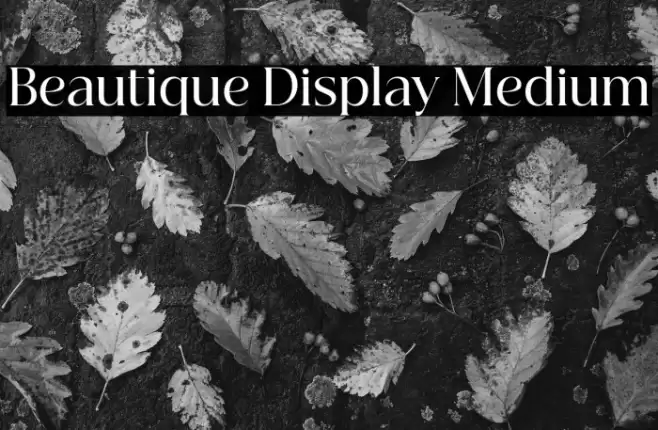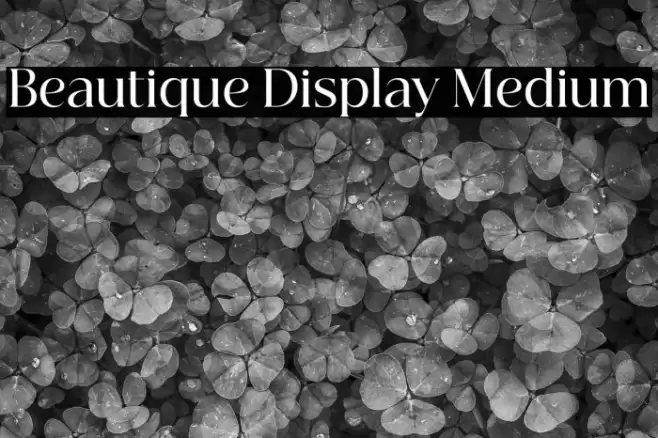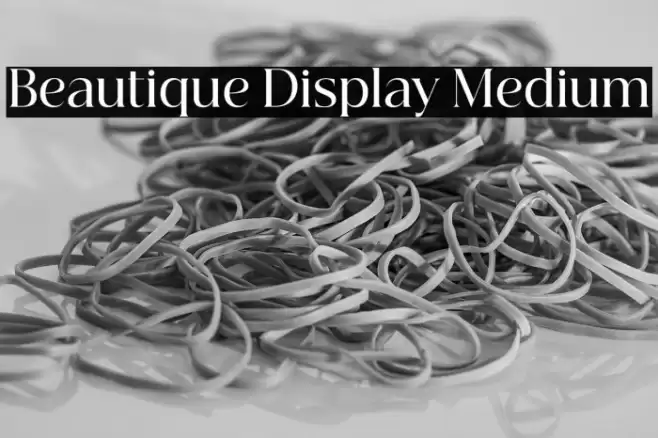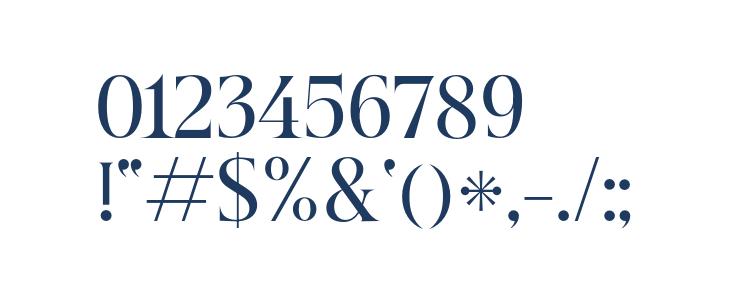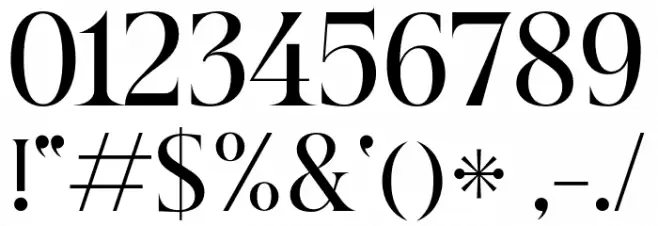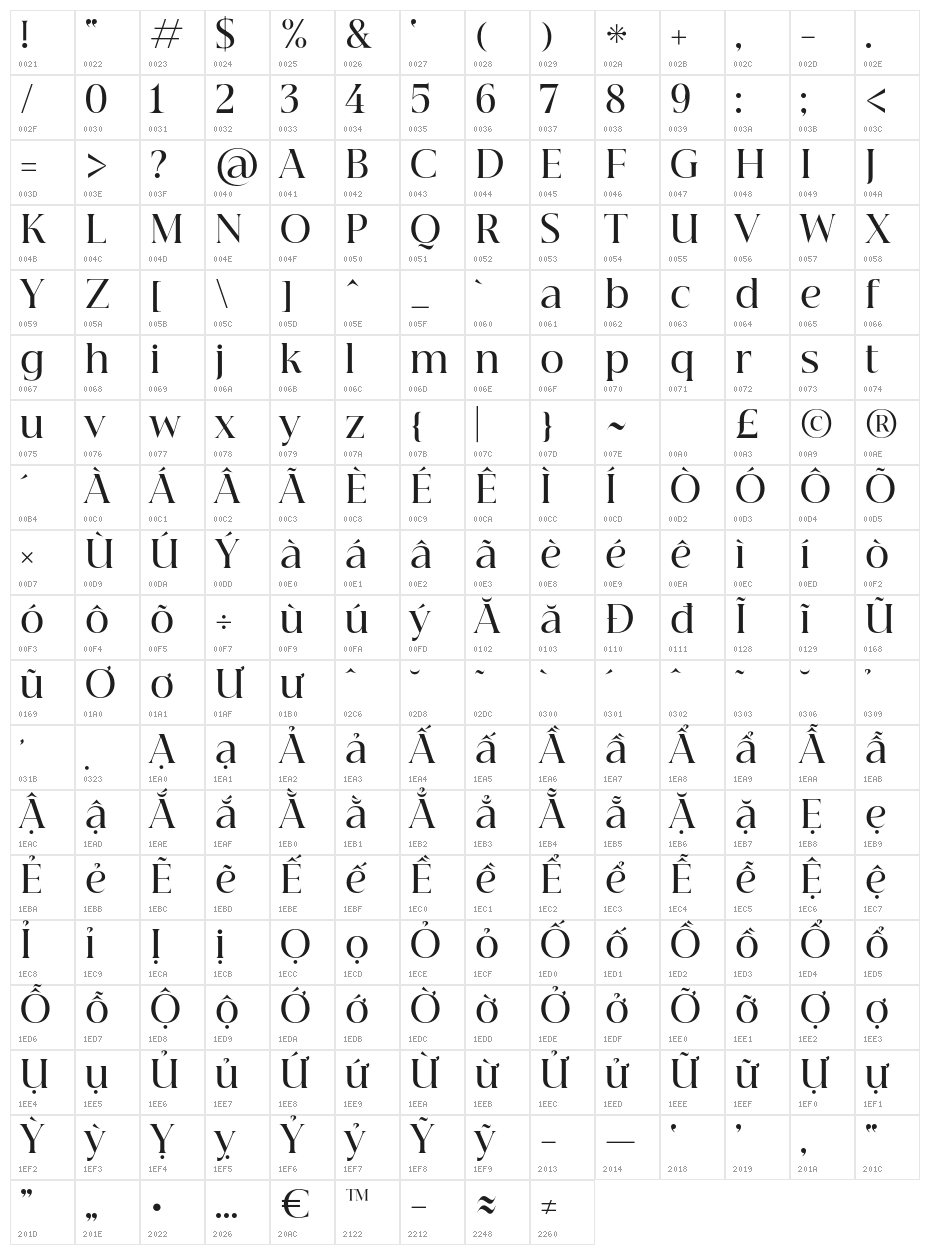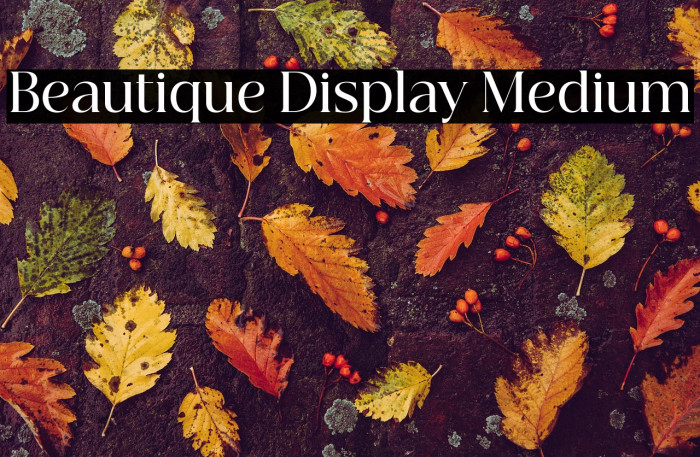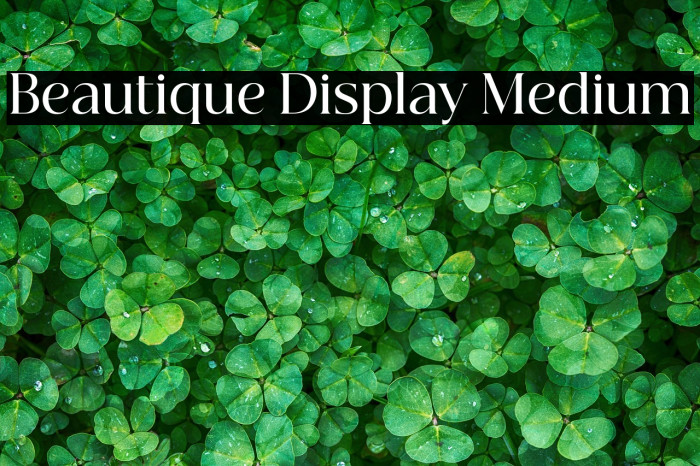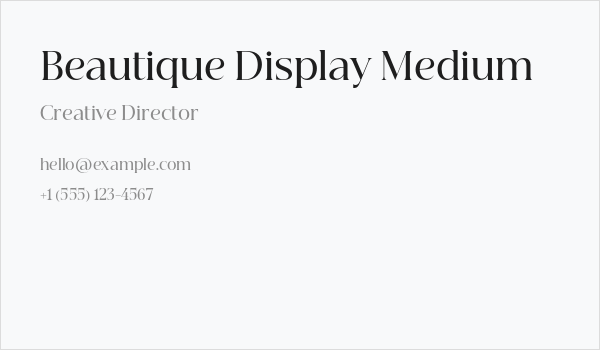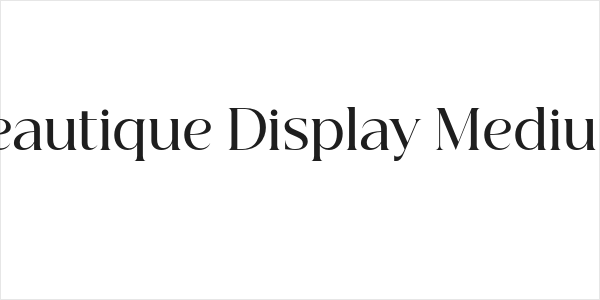
Beautique Display Medium Font
Beautique Display Medium Description
This font exudes elegance and sophistication with its refined and graceful letterforms. The characters are designed with a high contrast between thick and thin strokes, giving it a classic yet modern appearance. The serifs are sharp and pronounced, adding a touch of formality and tradition. The uppercase letters stand tall and commanding, while the lowercase letters maintain a harmonious flow, making it versatile for various design needs. The numerals and special characters are crafted with the same attention to detail, ensuring consistency throughout. This font is ideal for projects that require a touch of luxury and style.
Elegant serif font with high contrast and refined details from Uncategorized fonts.
- Proposed Projects: Ideal for luxury branding, editorial design, wedding invitations, and high-end product packaging.
- Overall Style: Classic
- Use Case: Headlines, Logos, Editorial design